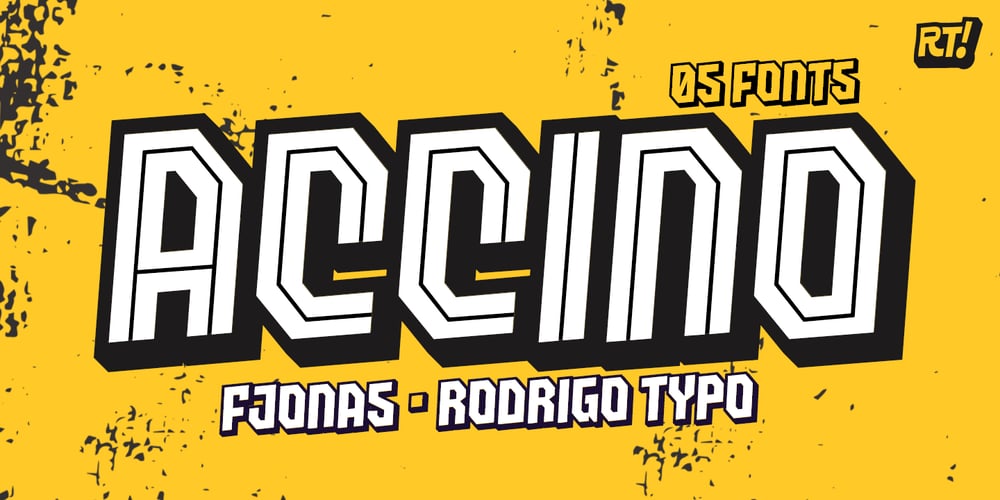
Accino Font Family was designed by Rodrigo Araya Salas, Franco Jonas and published by RodrigoTypo. Accino contains 5 styles and family package options. Accino is a font family of 5 styles (Black, Black Inline, Stencil, Sharp and Shadow) and also contains the Cyrillic alphabet. It is perfect for titles with concepts about action, energy, strength.